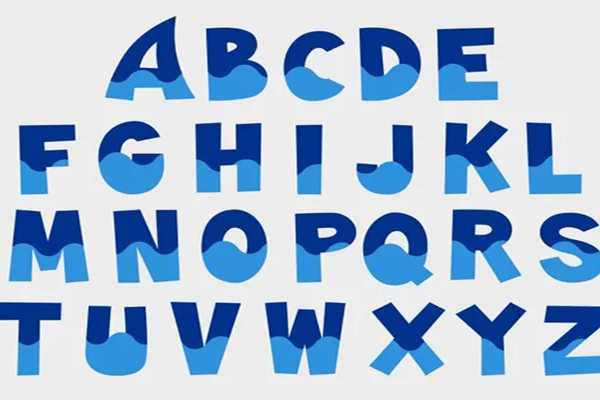
The Baby Shark font is a typeface that is very appropriately named Shark Party. The listed font author is Spoonflower who is well known within the typographic community as being the producer of many classic comic-style fonts. The Shark Party typeface comes available as a True Type Font (TTF) and Open Type Format (OTF) making it fully compatible with all pc and mac computers. It also comes packaged with some cute SVG shark and sealife inspired images that you cuse together with this font in your graphic design projects.
This font is a near exact replica of the lettering that was used in the original Baby Shark logo and wordmark. The letter "A" is particularly cute as it closely mimics the shape and form of a shark fin. Using this this font file you can create a realistic interpretation that you can use to create t-shirts, posters, logos, and even on your own personal website.